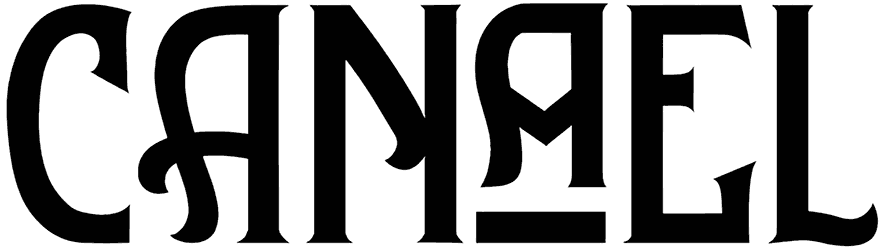
Cavas Font
Cavas font is an elegant one with curly and serif characters that look like they have been written to resemble a groovy style written with a classy night in mind. We usually see this kind of font in cabaret designs and club flyers, but you can also use it for advertisements, night shows, and personal blogs.
The character set on this retro font has a few curled-in elements that help your work be a bit more fun.
Designed by: MixJpg